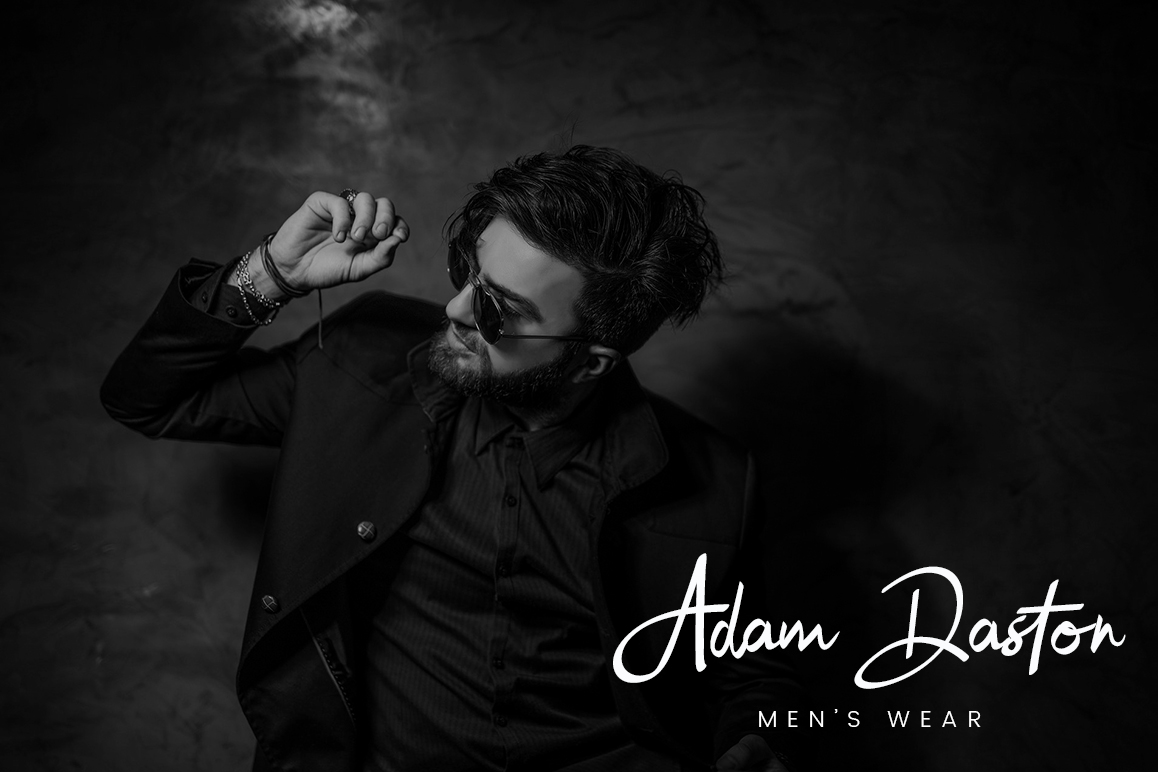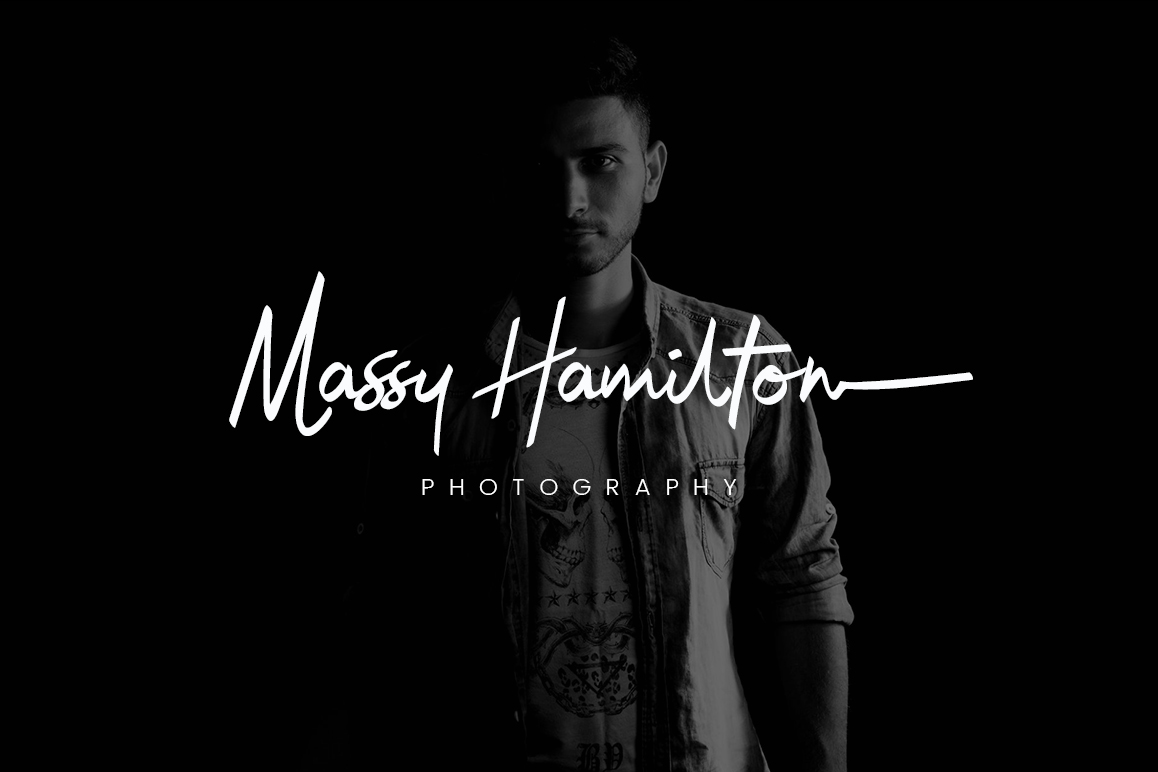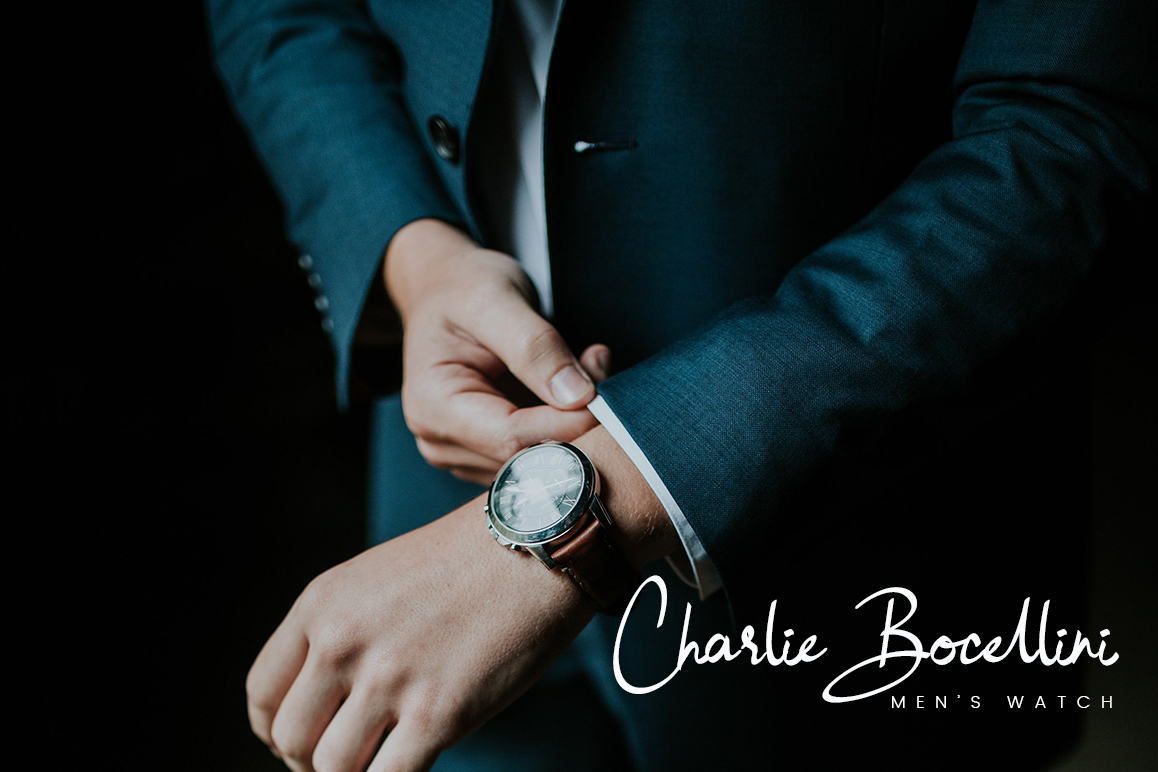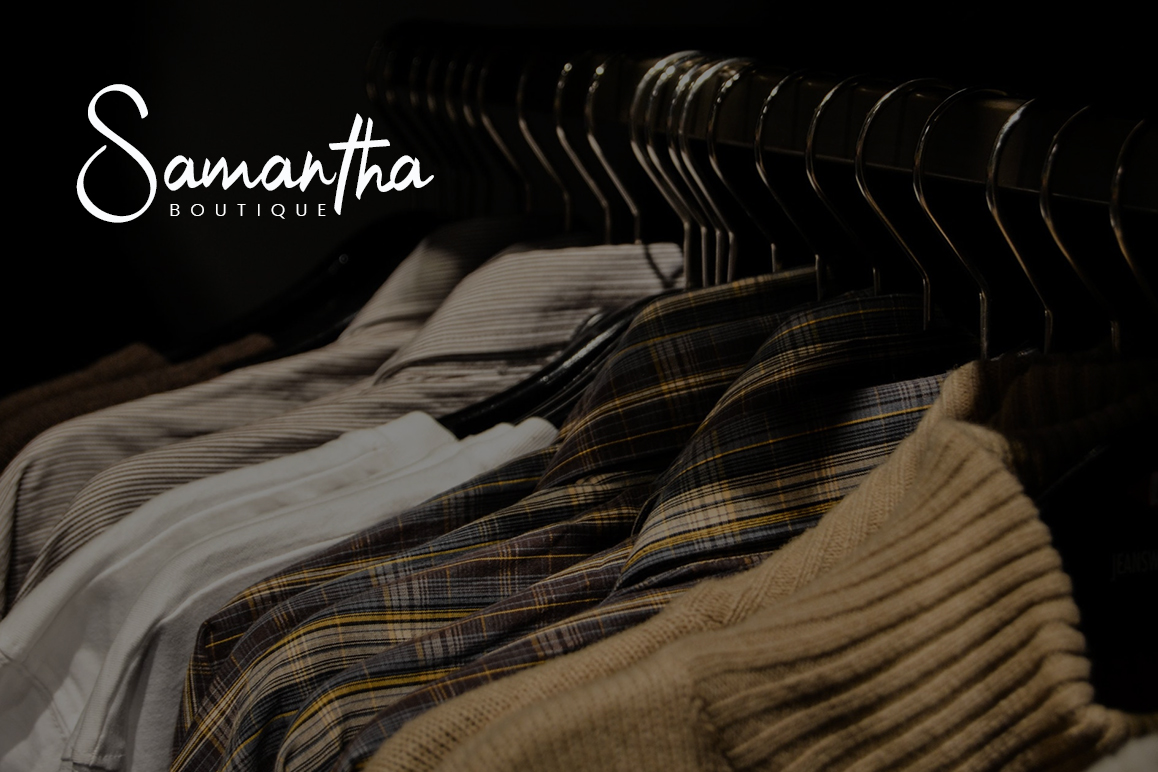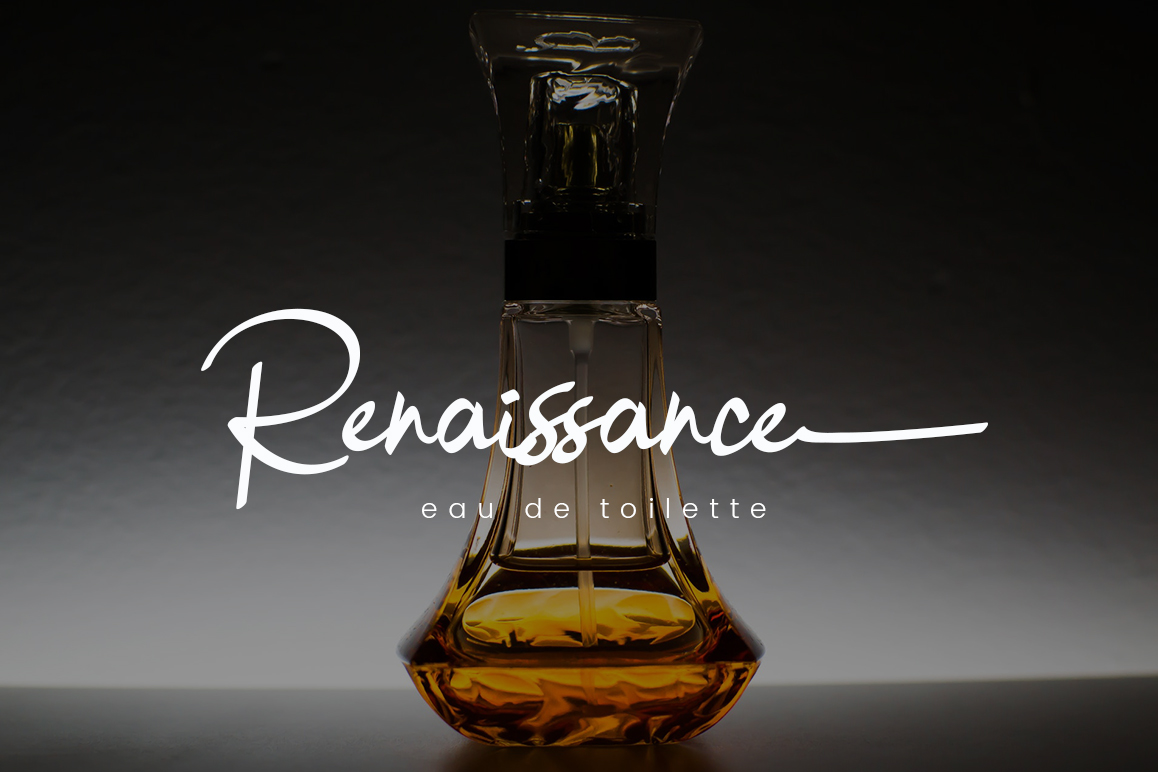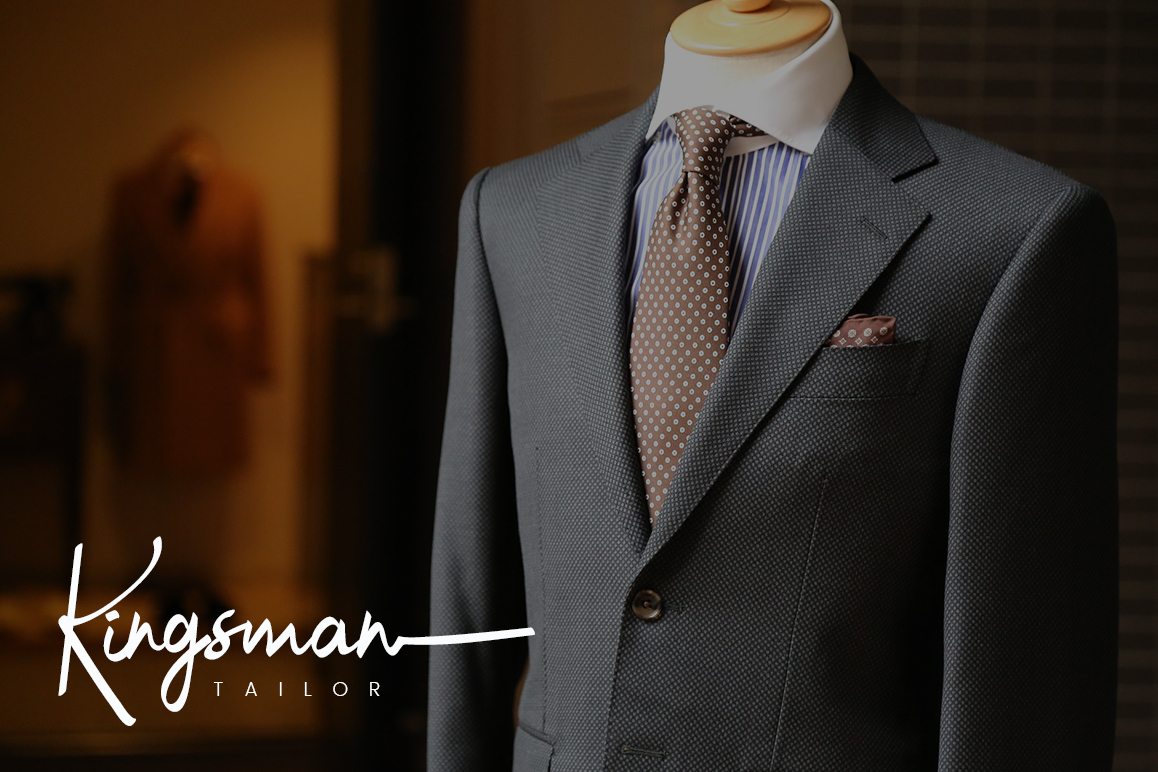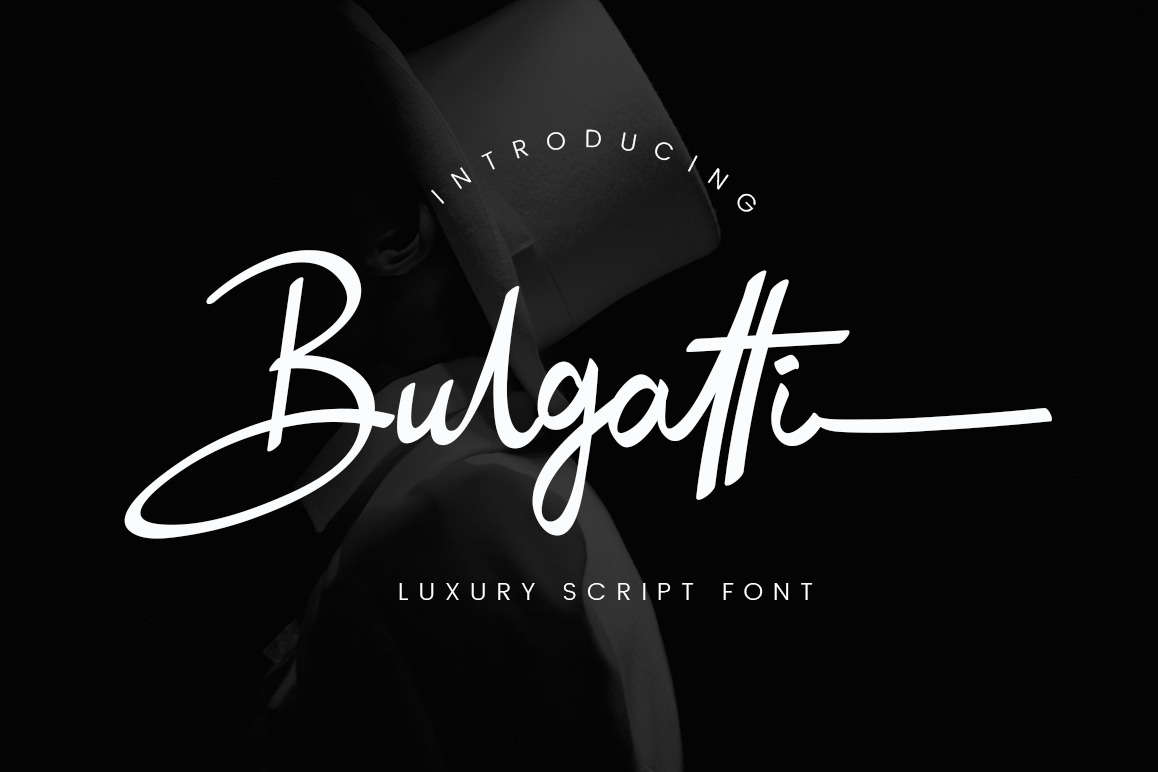
The Bulgatti Font: Elevate Your Designs with Luxury and Sophistication
I’ll never forget the design project that led me to discover the Bulgatti font. I was working on a luxury brand campaign, and my client requested a font that exuded elegance and sophistication. I scoured the internet, tried out countless fonts, but nothing seemed to fit the bill. That was until I stumbled upon Bulgatti – a stunning script font that instantly elevated my design game.
An Honest Review of Bulgatti
So, what makes Bulgatti so special? Let’s dive into the good stuff and a few quirks I’ve encountered.
What I Love About Bulgatti
• ✨ Sophisticated style: Bulgatti boasts a sleek, strong design that’s perfect for luxury brands, high-end products, or any project that requires a touch of elegance.
• ✅ Effortless readability: Despite its script nature, Bulgatti is remarkably legible, even at smaller font sizes.
• 💫 OpenType features: This font comes with a range of OpenType features, including stylistic alternates, ligatures, and glyphs, giving you plenty of creative freedom.
While Bulgatti is an exceptional font, there are a few things to keep in mind:
• 🤔 Limited use in body text: Due to its script nature, Bulgatti might not be the best choice for lengthy body text. It’s better suited for headings, titles, or short paragraphs.
• ⚠️ Glyph compatibility: Some glyphs or special characters might not work seamlessly across all platforms or software. Be sure to test your design before finalizing.
The Story Behind Bulgatti
Rumor has it that Bulgatti was inspired by the elegance of Italian luxury brands. The font’s creator aimed to capture the essence of high-end fashion and translate it into a sophisticated, yet approachable typeface. While the true story might be fictional, one thing is certain – Bulgatti has become a go-to font for designers seeking luxury and refinement.
Q: What makes Bulgatti suitable for luxury brands?
A: Bulgatti’s sleek, sophisticated design and elegant style make it an excellent choice for luxury brands looking to convey high-end quality and refinement.
Q: Can I use Bulgatti for body text?
A: While Bulgatti is legible, it’s better suited for headings, titles, or short paragraphs due to its script nature.
Q: Does Bulgatti support OpenType features?
A: Yes, Bulgatti comes with a range of OpenType features, including stylistic alternates, ligatures, and glyphs, giving you creative freedom to customize your design.